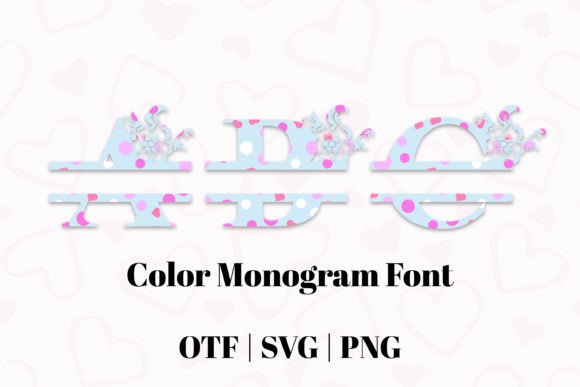
The Blossom Monogram Blue Font: A Delightful Addition to Your Design Arsenal
- ✨ The adorable blossoms that adorn each letter, adding a touch of whimsy to any design
- ✅ The soothing blue hue that evokes feelings of serenity and calmness
- 💕 The elegant and simple design that makes it perfect for monograms, logos, and more
- 🌼 The versatility of the font, which works beautifully for both digital and print projects
The Story Behind Blossom Monogram Blue
Blossom Monogram Blue was designed by a team of creatives who wanted to bring a touch of nature’s beauty to the world of typography. Inspired by the delicate blossoms of spring, they crafted a font that’s both elegant and playful. The result is a font that’s perfect for designers, crafters, and creative hobbyists who want to add a personal touch to their projects.